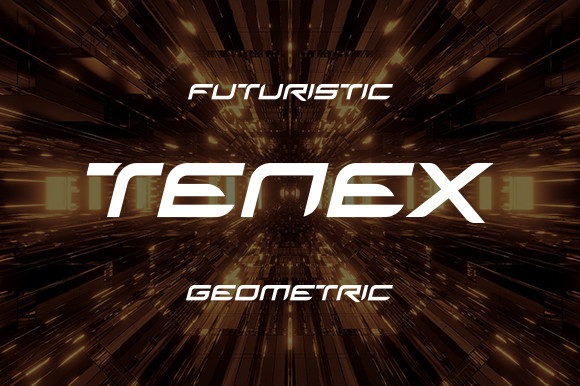
Step into the realm of Tenex Font, a futuristic odyssey where science fiction meets captivating geometry. This extraordinary display font is your gateway to the digital frontier, where your designs will soar to new heights.
Tenex's sleek lines and sharp angles evoke a sense of dynamism and innovation. It's not just a font; it's a statement of modernity, a testament to the power of technology to shape our visual landscape.
Whether you're crafting logos that demand attention or designing t-shirts that turn heads, Tenex is your secret weapon. Its versatility knows no bounds, from bold posters that command a room to eye-catching banners that ignite the imagination.
Streetwear designs take on a whole new level of swagger with Tenex, its geometric precision adding an edge that sets your creations apart. And as you delve into other creative endeavors, Tenex will be your steadfast companion, elevating your work with its futuristic charm.
In a world where visual impact reigns supreme, Tenex Font is your key to captivating audiences and leaving an unforgettable mark. Its digital allure will draw eyes and spark conversations, making your designs the talk of the town.